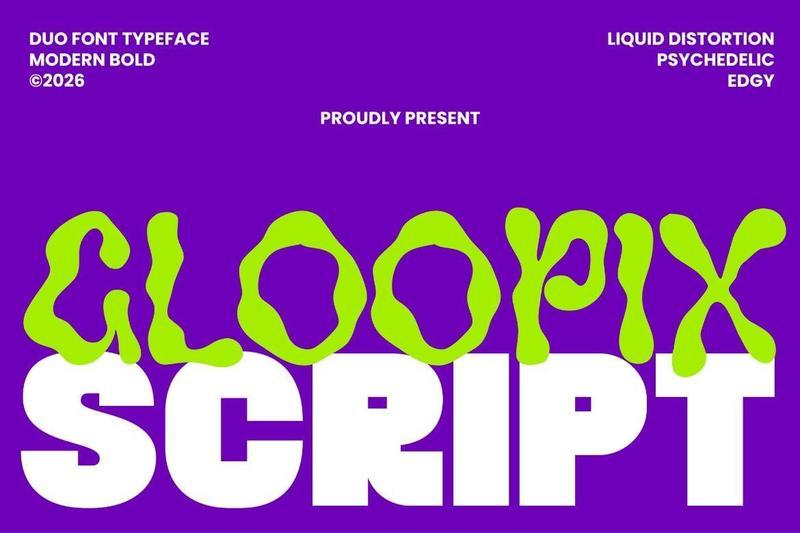
Gloopix Duo Font DVJUB84
Gloorix is a fun duo font that pairs two expressive personalities in one vibrant package a chunky, bubbly playful display font combined with a flowing handwritten script. Together they create a versatile and energetic combination that brings life, color, and character to any design.
Whether you’re working on kids branding, groovy posters, packaging, social media, or party invitations Gloorix gives you the flexibility to mix and match both styles for a bold, eye-catching result every time.
Full uppercase & lowercase characters
Numerals & punctuation
Standard multilingual support
PERFECT FOR
Logo & playful brand identity
Poster & event design
Children’s book covers & educational materials
Party & birthday invitations
Social media graphics & thumbnails
Product packaging
YouTube thumbnails & digital ads